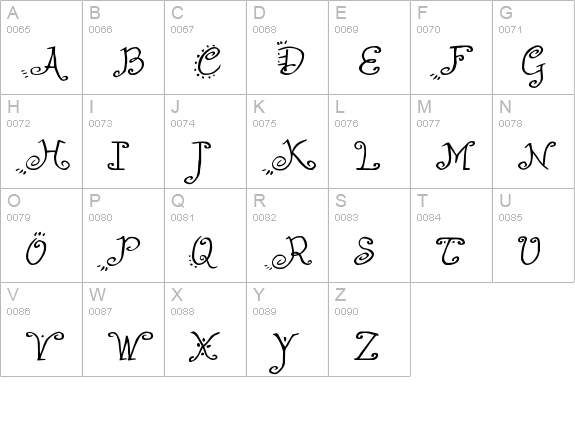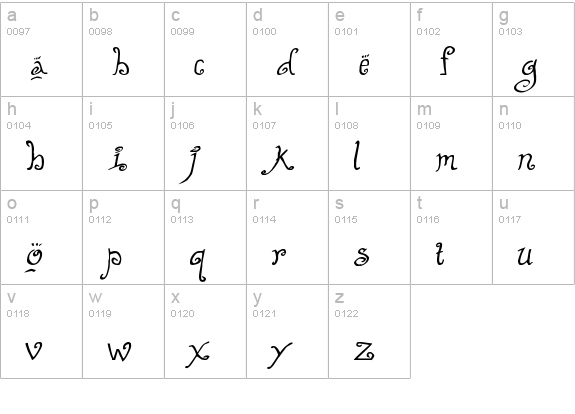
Helzapoppinâ„¢ Font Details
Helzapoppin™ font is a playful and whimsical typeface that exudes creativity and fun. With its dynamic and energetic design, this font is perfect for adding a touch of liveliness to your projects. The unique characters and quirky details make Helzapoppin™ stand out from the crowd and bring a sense of joy to any design. And the best part is, Helzapoppin™ font is available for free download at FontsMarket.com. So go ahead and sprinkle some magic into your designs with this delightful and free-to-use font!